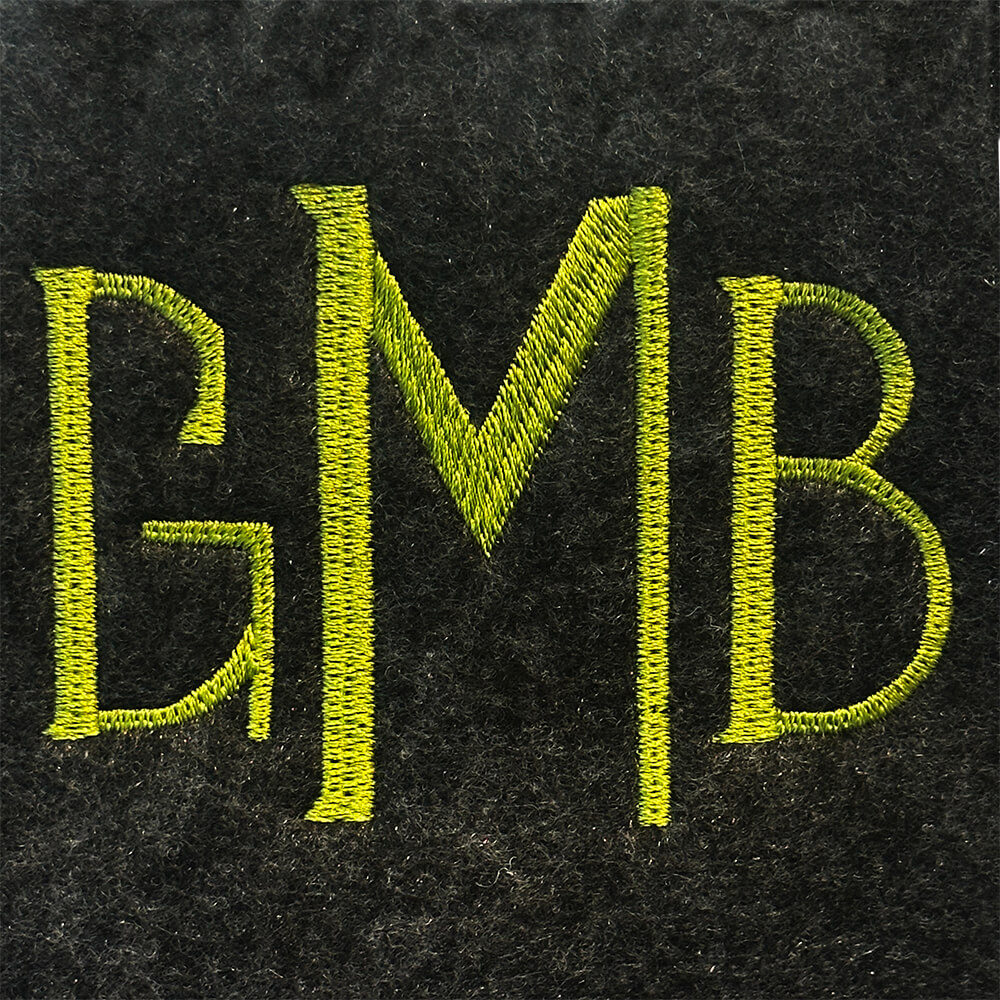
Gin and Tonic Monogram – Machine Embroidery Font
Raise a toast to personalized style with the Gin and Tonic Monogram Embroidery Design, combining a classic cocktail theme with a custom monogram
Gin and Tonic Monogram – Machine Embroidery Font
All upper case letters suitable for building monograms.